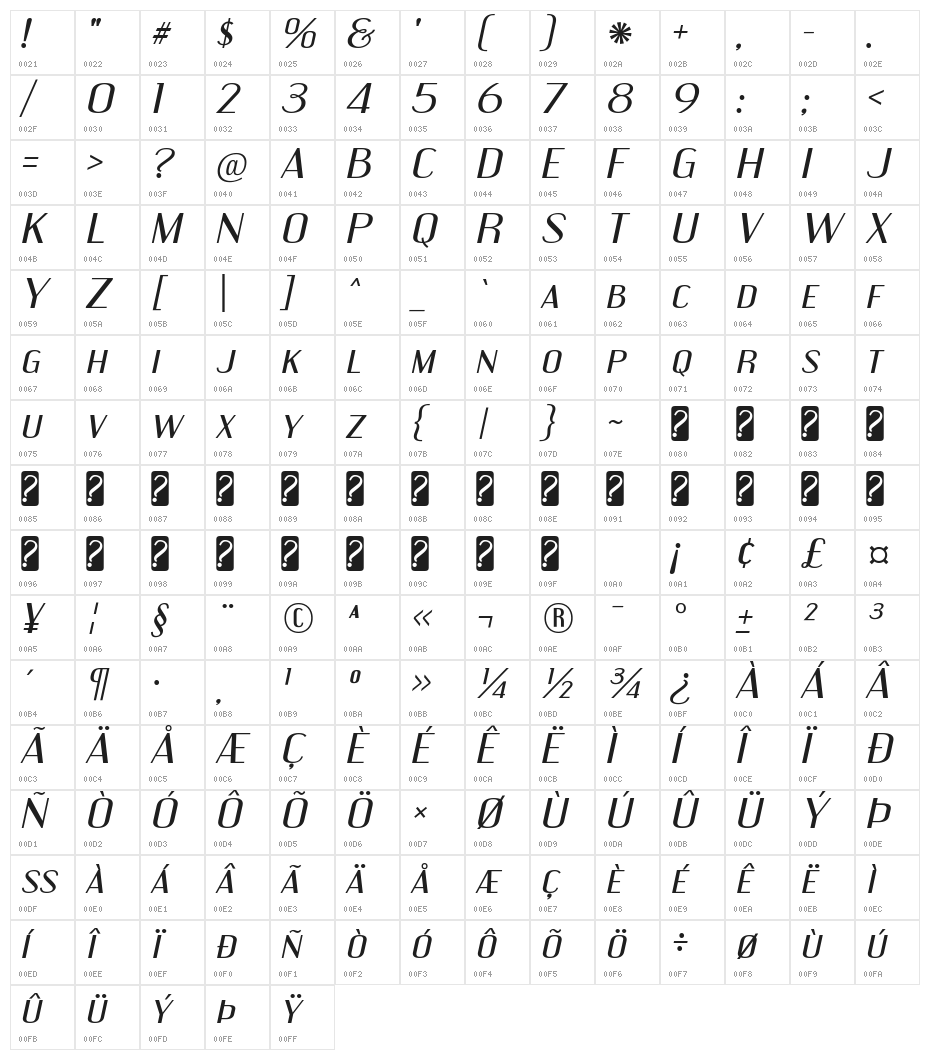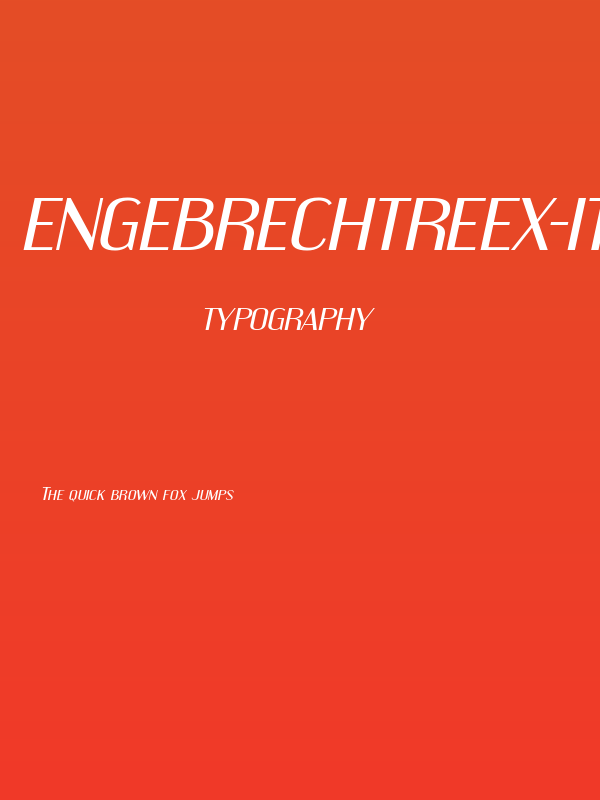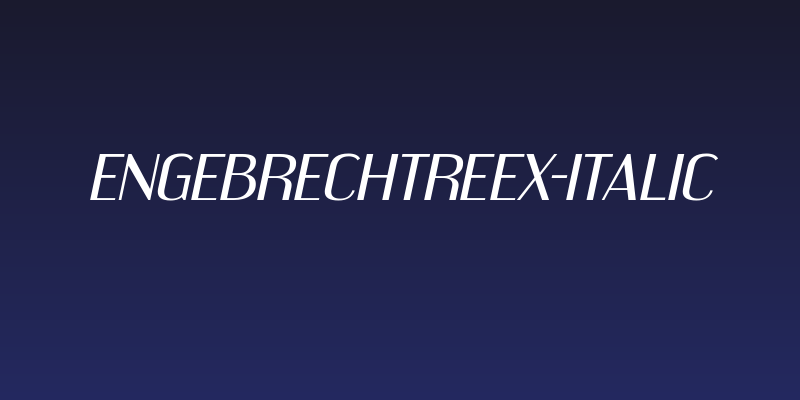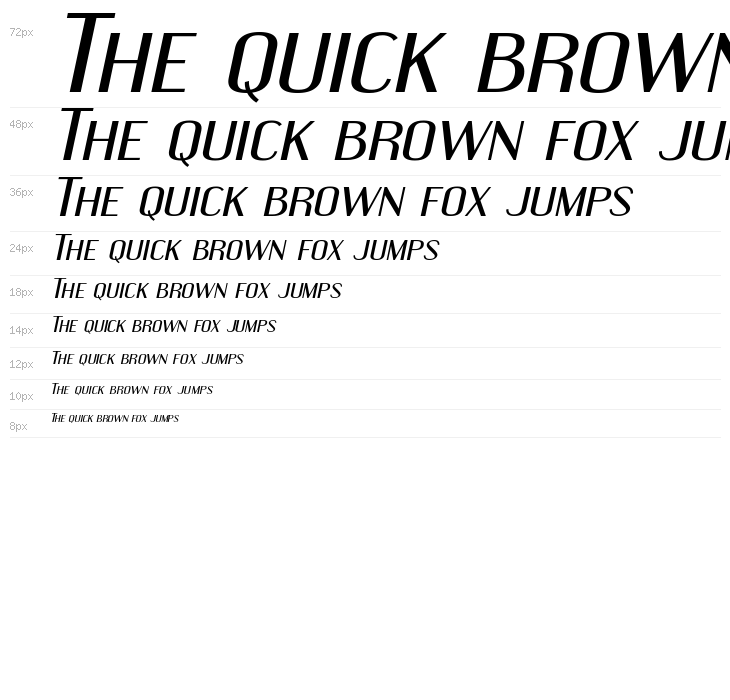
EngebrechtreEx-Italic Font
EngebrechtreEx-Italic Description
This font features a sleek and modern italic style, characterized by its slanted, streamlined letters that convey a sense of motion and elegance. The strokes are clean and consistent, with a moderate contrast between thick and thin lines, giving it a dynamic yet balanced appearance. The characters are slightly condensed, enhancing the font's sophisticated and contemporary look. The numerals and special characters maintain the same italicized style, ensuring uniformity across all elements. This font is ideal for projects that require a touch of modernity and elegance.